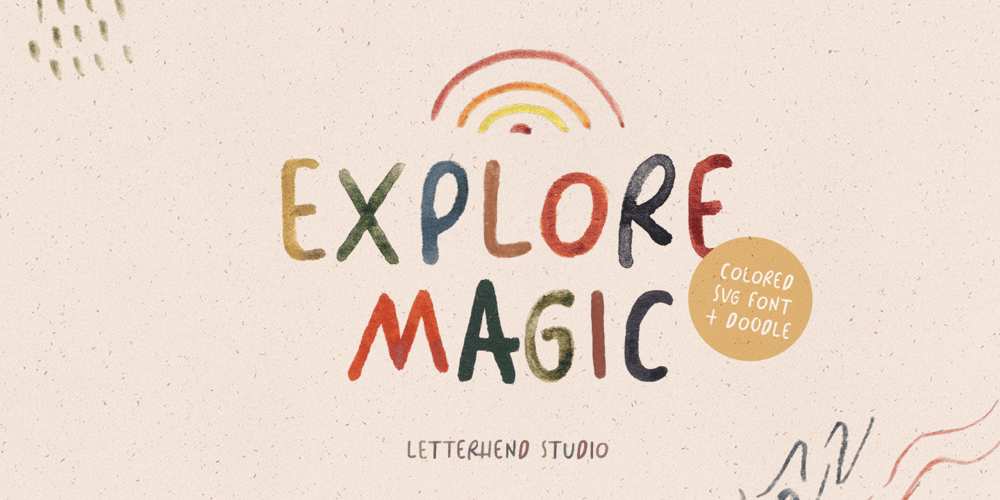
Explore Magic Font Family was designed by Hendry Juanda and published by Letterhend. Explore Magic contains 2 styles and family package options. Explore Magic is a typeface with fun and playful looks. Available in two types, solid version and transparent version with doodle dingbats as extra! This type of font perfectly made to be applied especially in storybook children or child theme which is need a standout font, and the other various formal forms such as invitations, labels, logos, magazines, books, greeting / wedding cards, packaging, fashion, make up, stationery, novels, labels or any type of advertising purpose.Features : Solid version Doodle dingbats numbers and punctuation multilingual ligatures PUA encoded We highly recommend using a program that supports OpenType features and Glyphs panels like many of Adobe apps and Corel Draw, so you can see and access all Glyph variations. How to access opentype feature : letterhend.com/tutorials/using-opentype-feature-in-any-software/